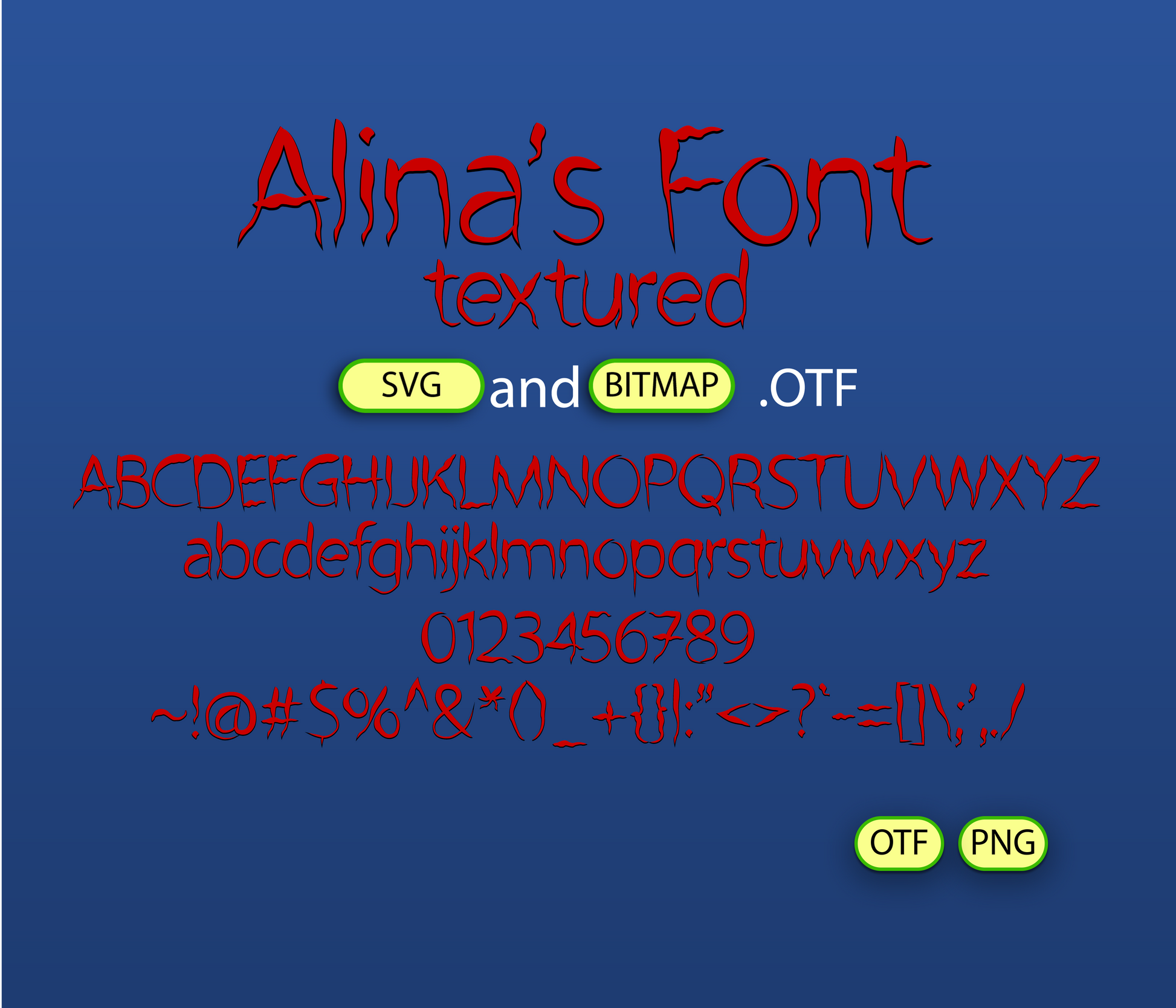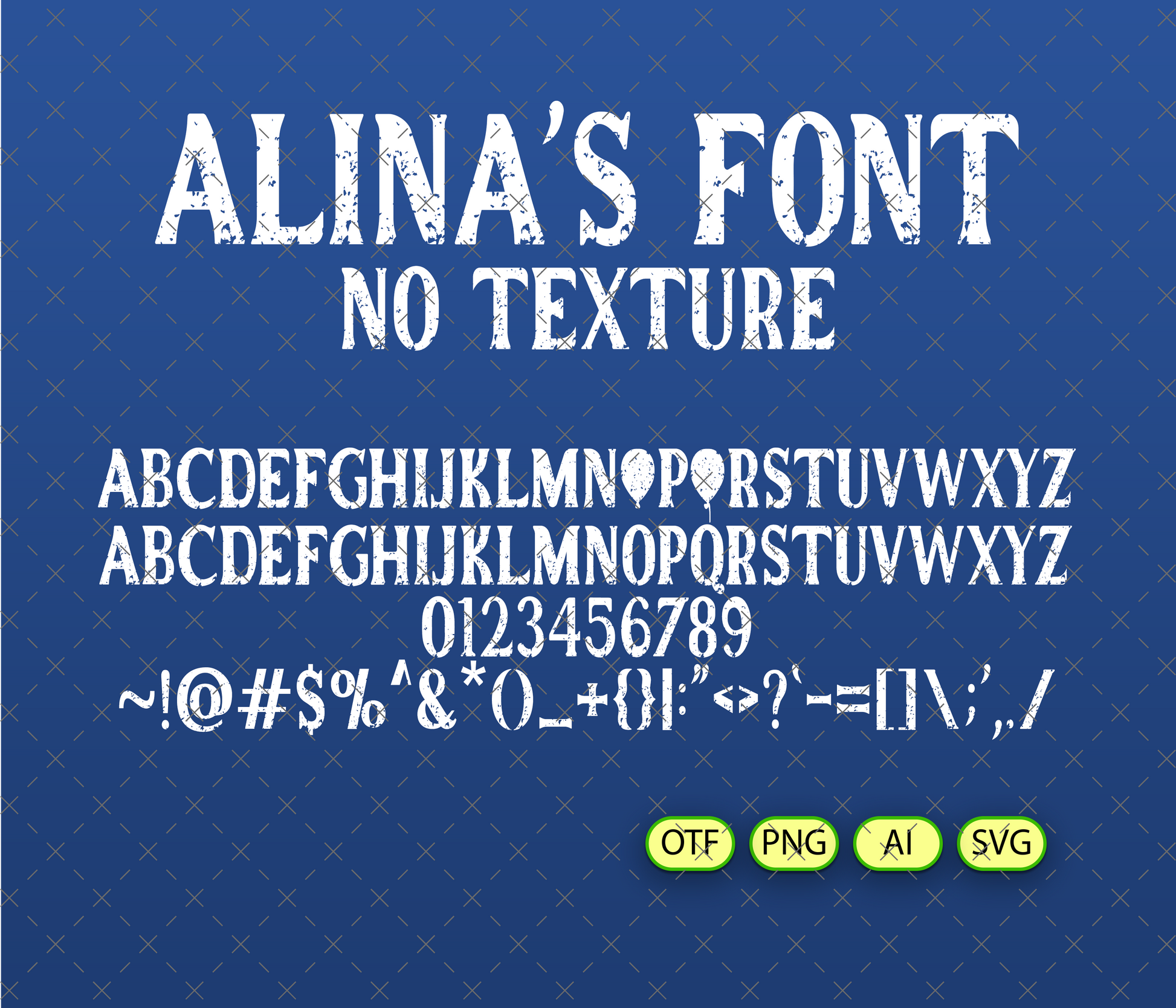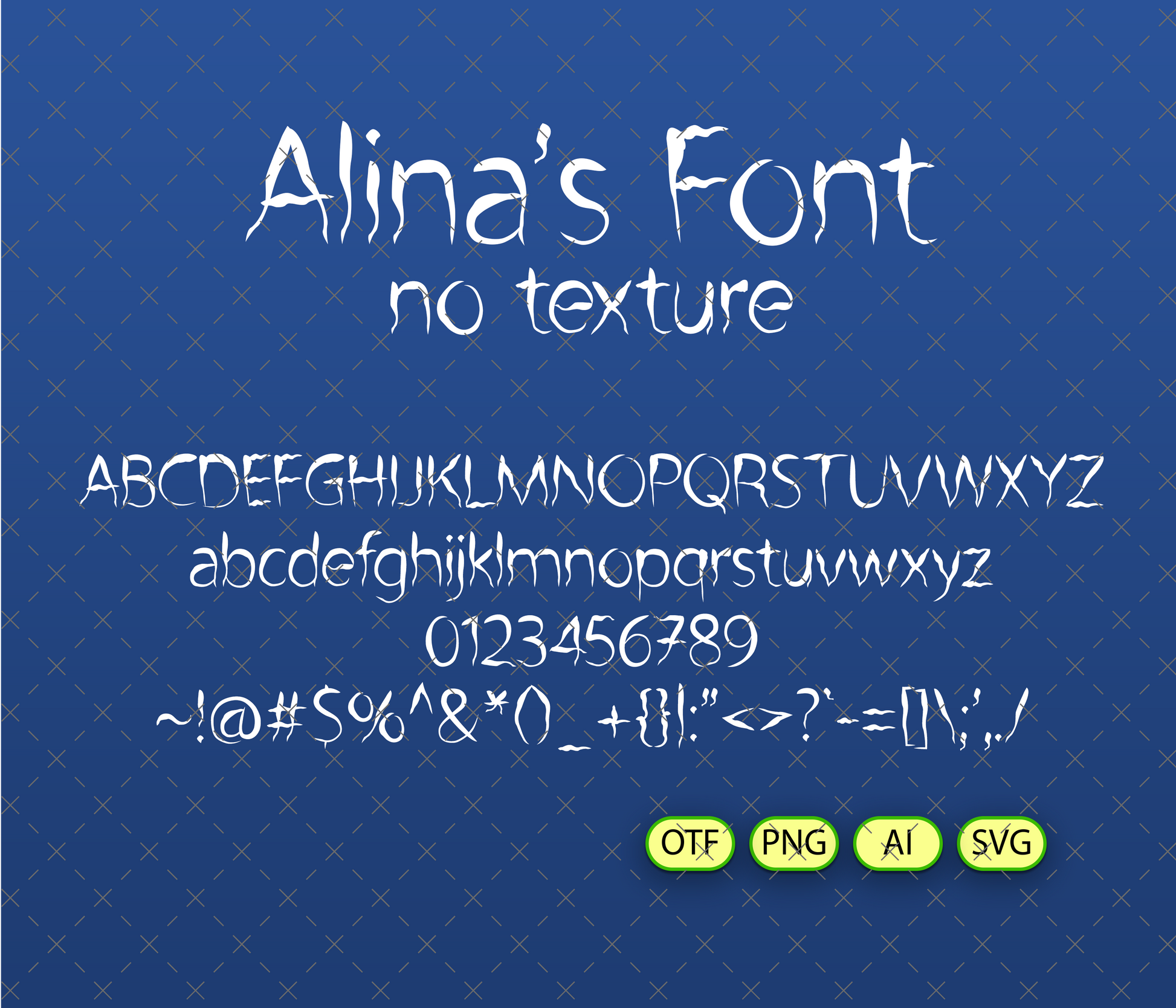
Sewer Town Welcome Font Textured Bundle
Step into the chilling world of small-town horror with our Sewer Town Welcome Textured font, capturing the essence of creepy carnivals and underground terror. Perfect for horror fans, thriller creators, event organizers, and designers, this font brings the sinister, haunting spirit of mysterious towns to your projects. Create spine-chilling materials, merchandise, or digital content with the eerie energy of carnival nightmares.
Our Sewer Town Welcome Textured font features distressed, weathered lines and ominous characters reflecting the world of small-town horror. Ideal for:
- Event Promotions: Create terrifying invites, posters, and banners for horror screenings, Halloween events, and themed parties that capture the spirit of carnival terror
- Merchandise Design: Perfect for t-shirts, posters, and accessories that showcase the sinister aesthetic of underground horrors and creepy celebrations
- Digital Media: Enhance websites, blogs, and social media with chilling headers and graphics that express the fear of mysterious towns
- Horror Content: Add authentic flair to fan art, thriller projects, and creative designs inspired by carnival nightmare tales
- Personal Projects: Bring spine-tingling excitement to scrapbooking, DIY crafts, and home decor inspired by the world of small-town terror
Our font pays tribute to the iconic world of small-town horror, empowering your designs with its sinister and haunting spirit. Whether crafting promotional materials, designing merchandise, or adding a chilling touch to personal projects, this font communicates the terrifying essence of carnival nightmares. Ready to inject underground terror into your creations? This font is your key to exciting, impactful design.